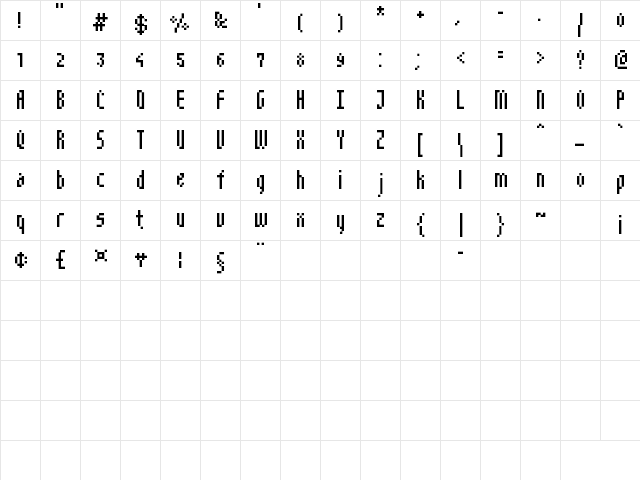
NarrowPix Regular
Design Context for NarrowPix Typeface
NarrowPix offers clean, dependable letterforms without strong stylistic allegiance, making it a practical choice for designers who need flexibility. The condensed width makes it efficient for tight spaces without sacrificing legibility.